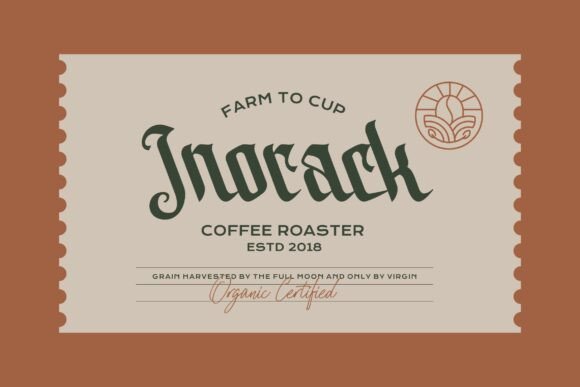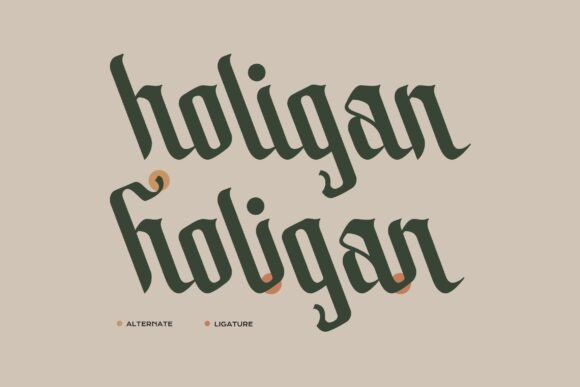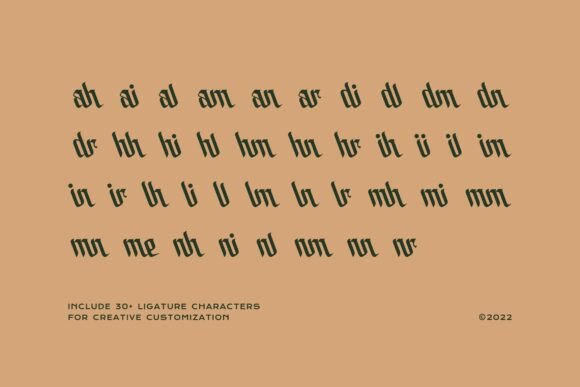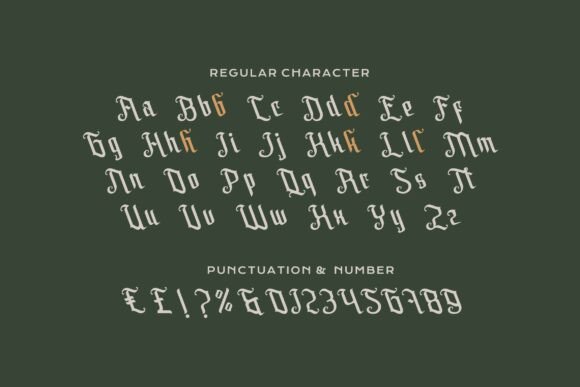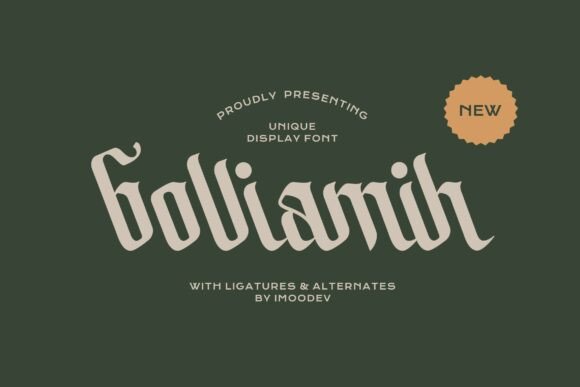
Bolliamih Font: A Striking Medieval Script for Bold Designs
In the realm of typography, few fonts evoke the same level of elegance and authority as Bolliamih, a modern reinterpretation of the classic blackletter tradition. This stunning medieval script font seamlessly blends vintage gothic charm with contemporary design sensibilities, making it an exceptional choice for designers seeking to create a powerful visual statement.
The Characteristics of Bolliamih Font
Bolliamih is characterized by its sharp, elongated strokes and intricate ornamental curves, which work in harmony to evoke a sense of sophistication and edge. The font’s design is deeply rooted in the blackletter tradition, yet it has been carefully crafted to appeal to modern design sensibilities. This unique blend of old and new makes Bolliamih an excellent choice for a wide range of design applications, from bold branding and eye-catching posters to editorial headlines, merchandise, and sophisticated packaging.
Design Applications for Bolliamih Font
One of the key benefits of Bolliamih font is its versatility. Its striking appearance and exceptional legibility make it an excellent choice for various design projects, including:
- Bold Branding: Create a lasting impression with Bolliamih’s authoritative and elegant design, perfect for logos, business cards, and brand identity materials.
- Eye-Catching Posters: Grab attention with Bolliamih’s striking appearance, ideal for posters, flyers, and other promotional materials.
- Editorial Headlines: Add a touch of sophistication to your editorial designs with Bolliamih’s elegant and refined appearance.
- Merchandise: Elevate your merchandise designs with Bolliamih’s unique and captivating style, perfect for t-shirts, mugs, and other products.
- Sophisticated Packaging: Make a statement with Bolliamih’s elegant design, ideal for luxury packaging, labels, and tags.
Why Choose Bolliamih Font?
For designers seeking to create a powerful visual statement, Bolliamih font offers a unique combination of elegance, authority, and edge. Here are just a few reasons why Bolliamih stands out:
- Unique Design: Bolliamih’s blend of vintage gothic charm and contemporary design sensibilities makes it a standout in the world of typography.
- Exceptional Legibility: Despite its ornate appearance, Bolliamih remains highly legible, making it suitable for a wide range of design applications.
- Versatility: Bolliamih’s striking appearance and elegant design make it an excellent choice for various design projects, from branding and posters to editorial headlines and packaging.
Bolliamih font is a striking medieval script font that offers a unique blend of elegance, authority, and edge. Its versatility, exceptional legibility, and PUA-encoded design make it an excellent choice for designers seeking to create a powerful visual statement. Whether you’re working on bold branding, eye-catching posters, editorial headlines, merchandise, or sophisticated packaging, Bolliamih is sure to make a lasting impression.